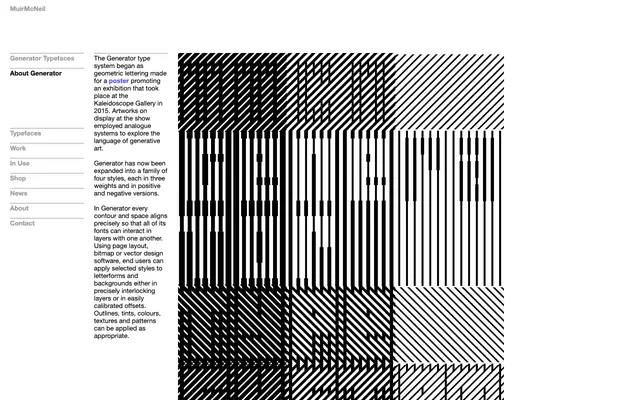
Generator
A geometric type system built for layered composition, originating from exhibition lettering created for a generative art show at Kaleidoscope Gallery in 2015.
Developed from poster lettering made for a 2015 exhibition exploring analogue generative systems, Generator has grown into a family of four styles across three weights, each available in positive and negative versions. Every contour and space is engineered to align precisely, allowing fonts to be stacked in interlocking layers or calibrated offsets using layout, bitmap or vector software. The system supports 126 of the 132 possible combinations between its A and B subfamilies, enabling outlines, tints, colours, textures and patterns to interact across letterforms and backgrounds.
Generator is a geometric display type system built around precise modular construction, designed explicitly for layered and generative visual effects rather than conventional text setting.